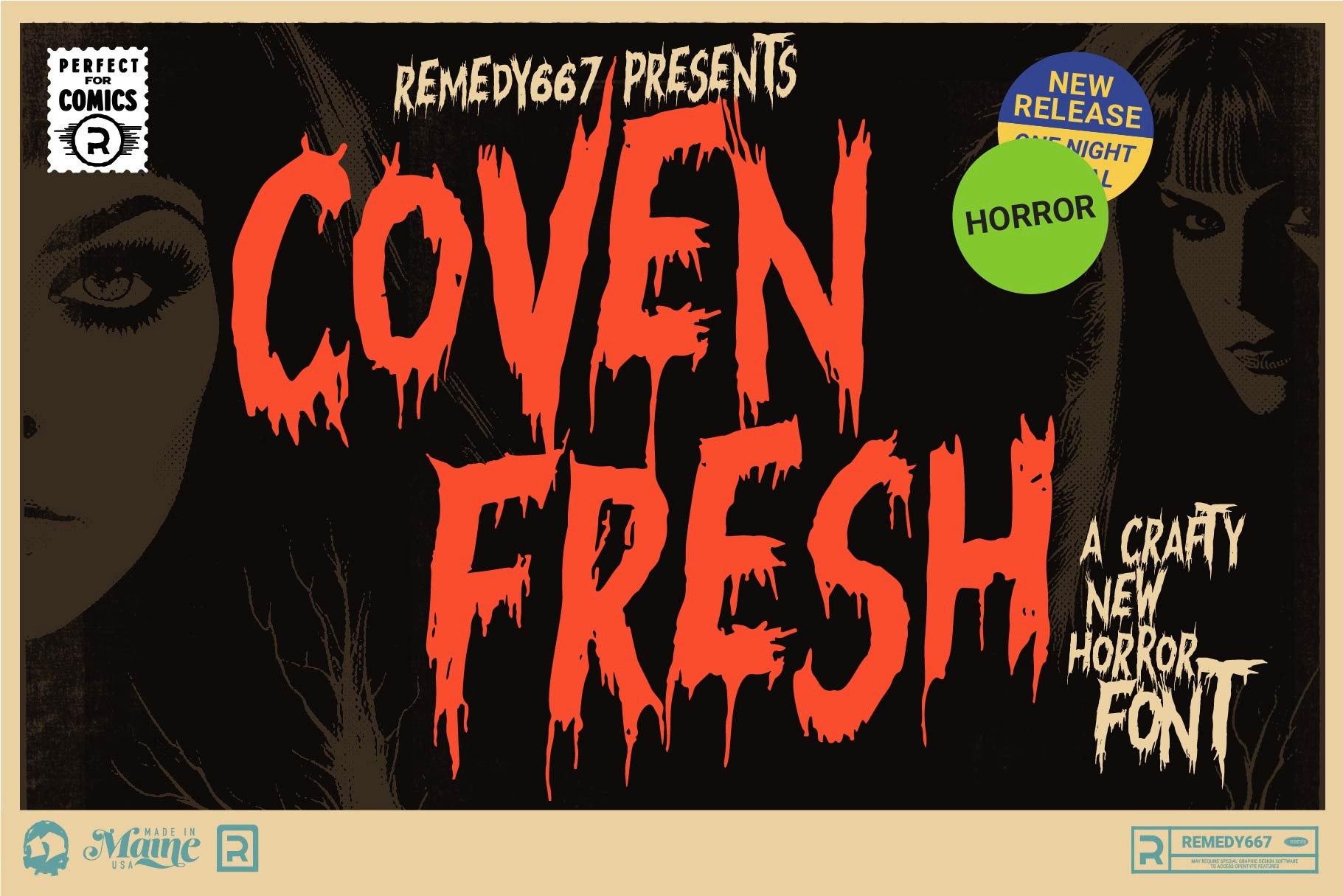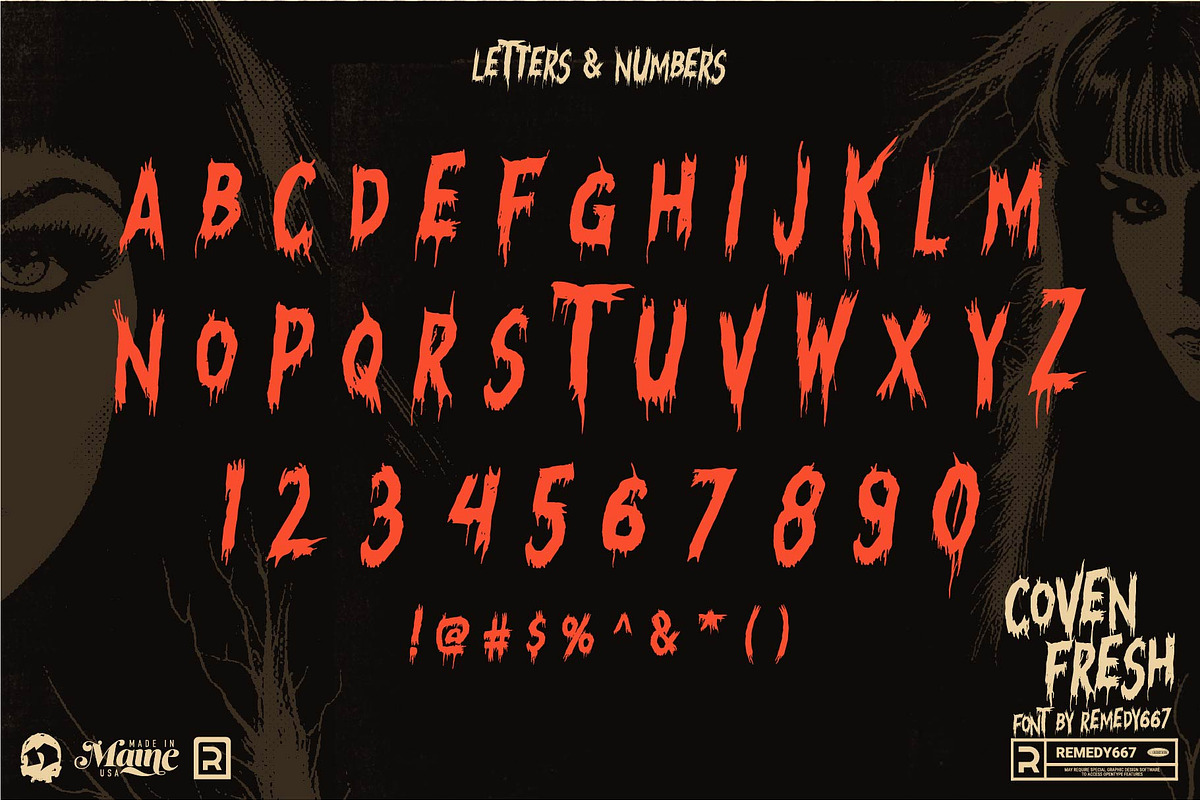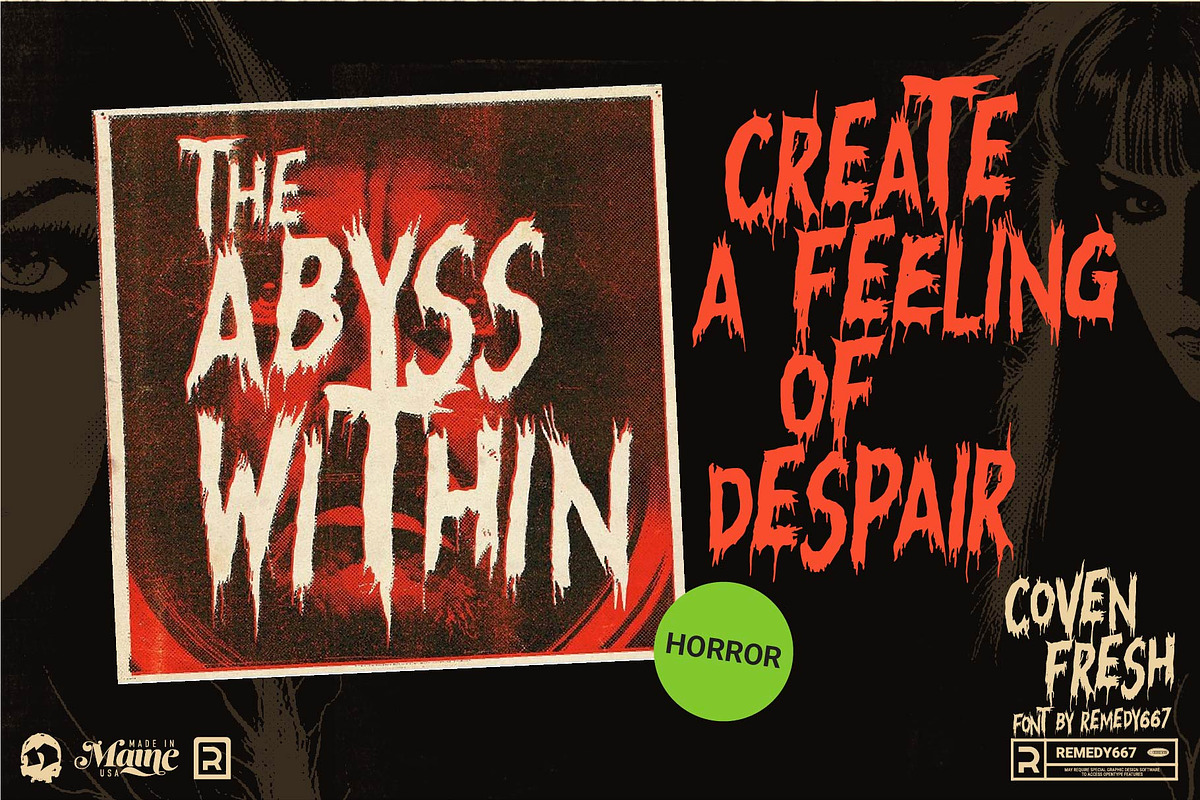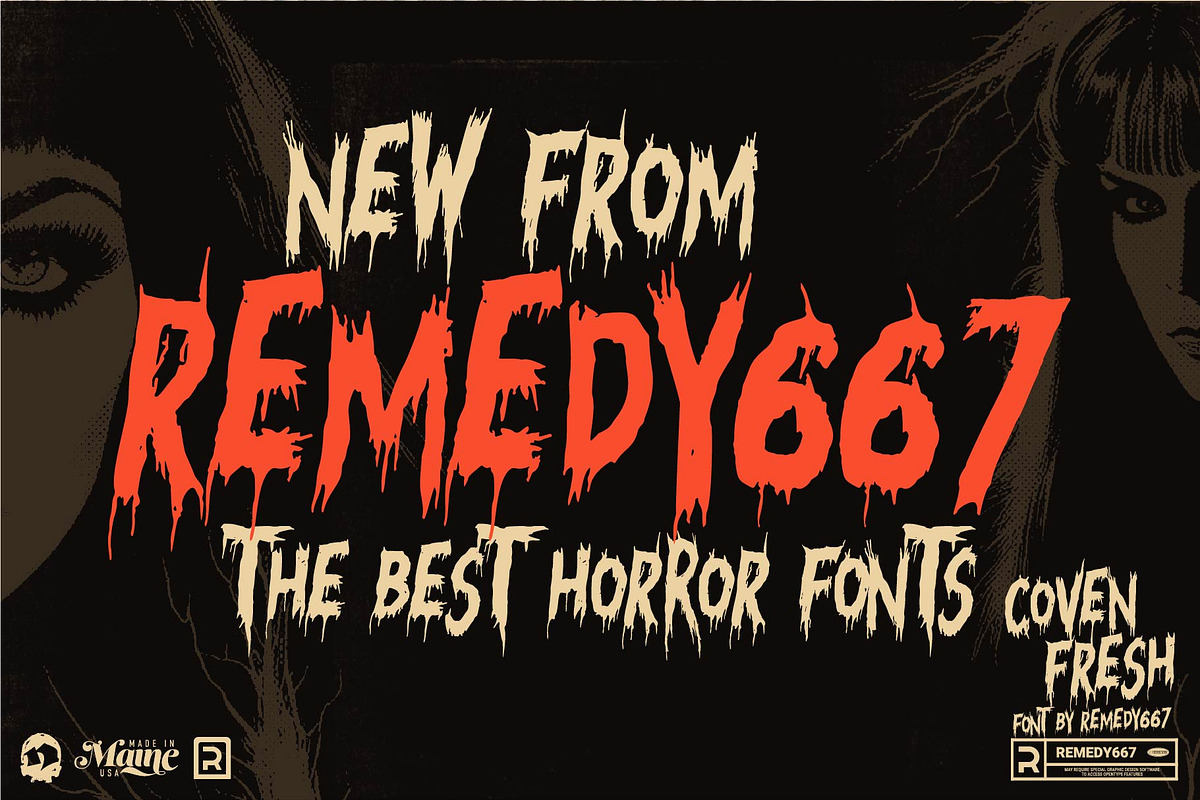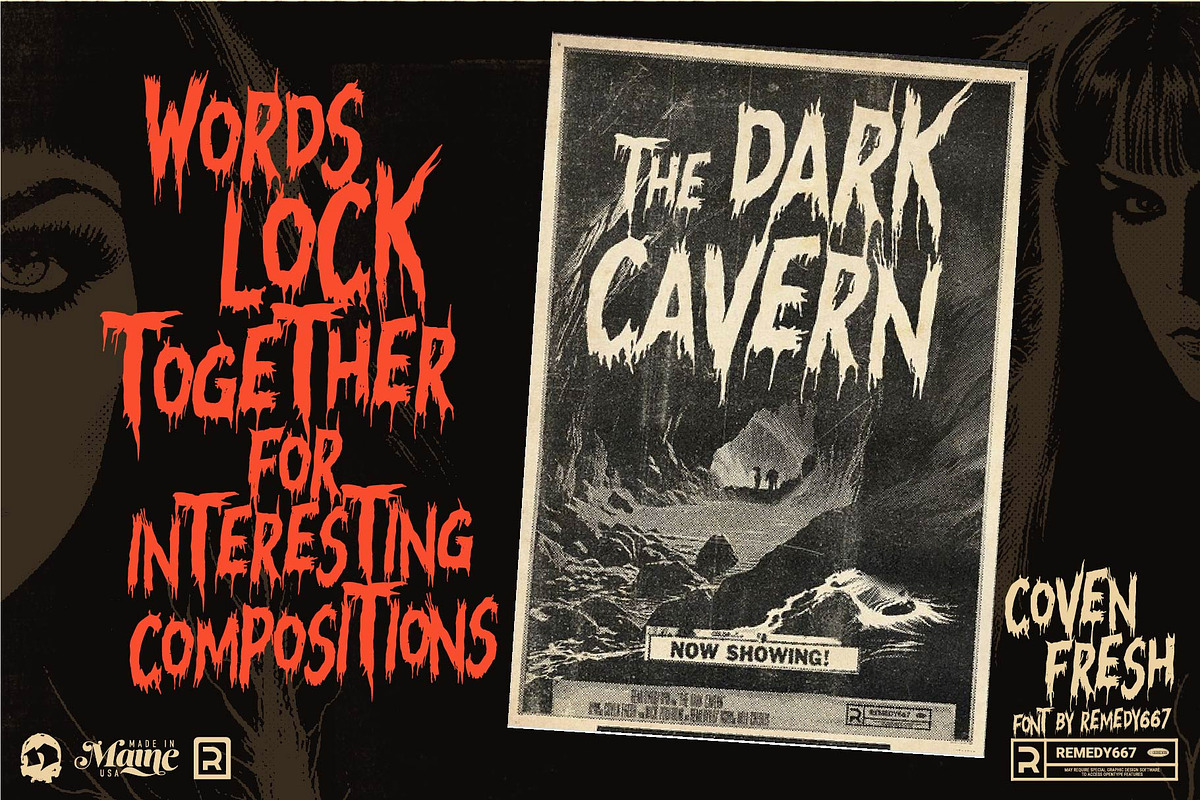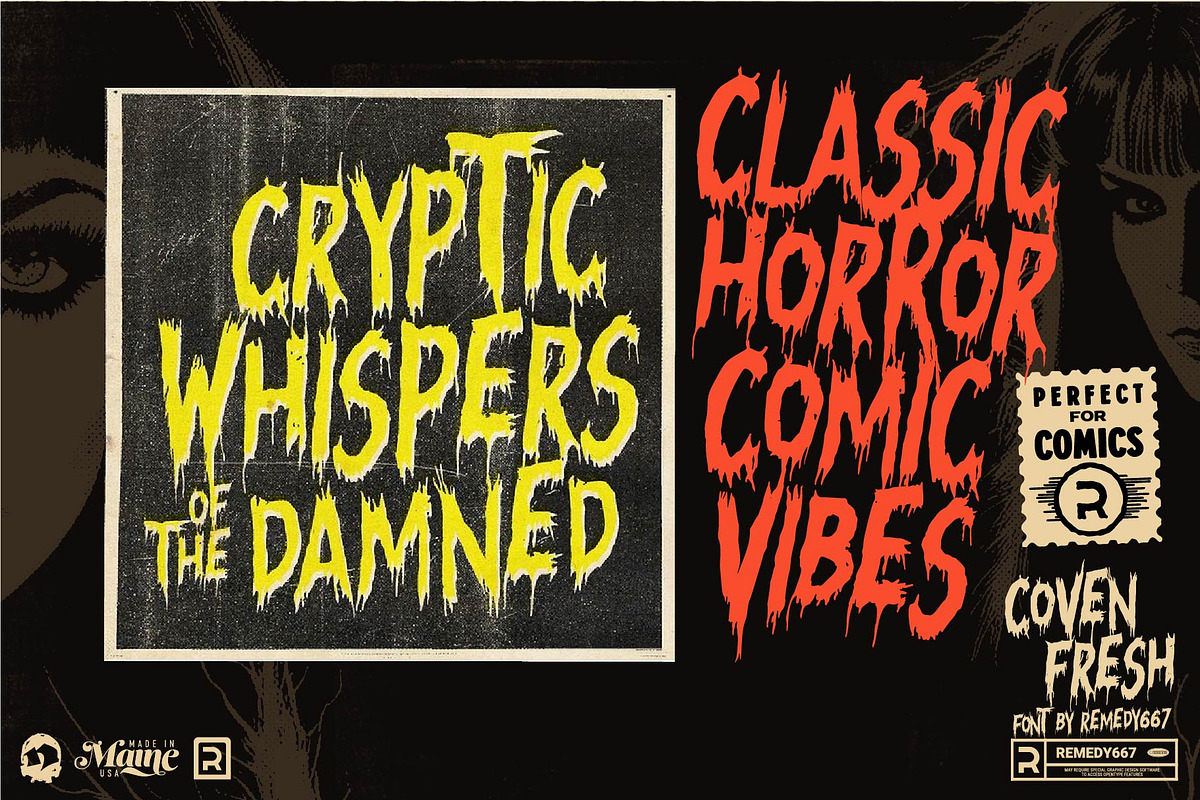
Coven Fresh - Horror Font
Unleash the terror with Coven Fresh – your gateway to design perfection! Infused with classic horror comic vibes, this font will scare the shivers out of your audience. Watch your words come alive as they stack together in intriguing compositions, creating an atmosphere of despair that’s perfect for all your creations.
Coven Fresh captures the essence of horror comics, delivering a chilling impact that will leave your audience in awe. Get ready to unleash terror and captivate attention like never before with Coven Fresh!
- Designed to create an eerie sense of despair, perfect for chilling designs that leave an impact.
- Watch words come together in a hauntingly beautiful composition